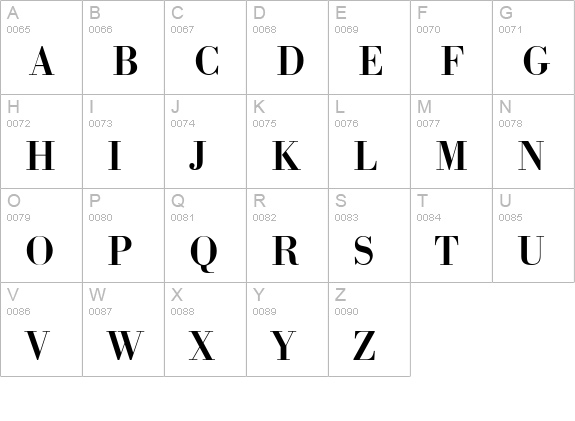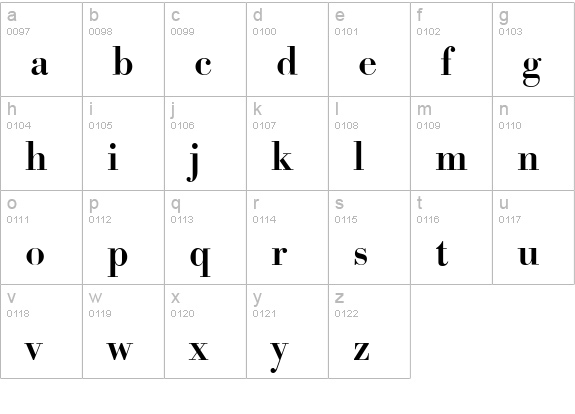
BodoniSerial-Medium-Regular is a balanced, medium-weight variant in the BodoniSerial typeface family \xE2\x80\x94 well suited to sub-headlines, navigation, and balanced editorial work.
BodoniSerial-Medium-Regular font is a classic and elegant typeface that exudes sophistication and timeless charm. With its strong, clean lines and graceful curves, this font is perfect for conveying a sense of refinement and style in any design project. Its medium weight strikes the perfect balance between boldness and delicacy, making it versatile for both headers and body text. What sets BodoniSerial-Medium-Regular font apart is that it is available for free download at FontsMarket.com. This means that you can easily access and use this beautiful typeface in your projects without any cost. Whether you're designing a logo, creating a poster, or crafting a website, BodoniSerial-Medium-Regular font will elevate your work with its distinctive and sophisticated look. Don't miss out on this amazing opportunity to enhance your designs with this stunning font for free.